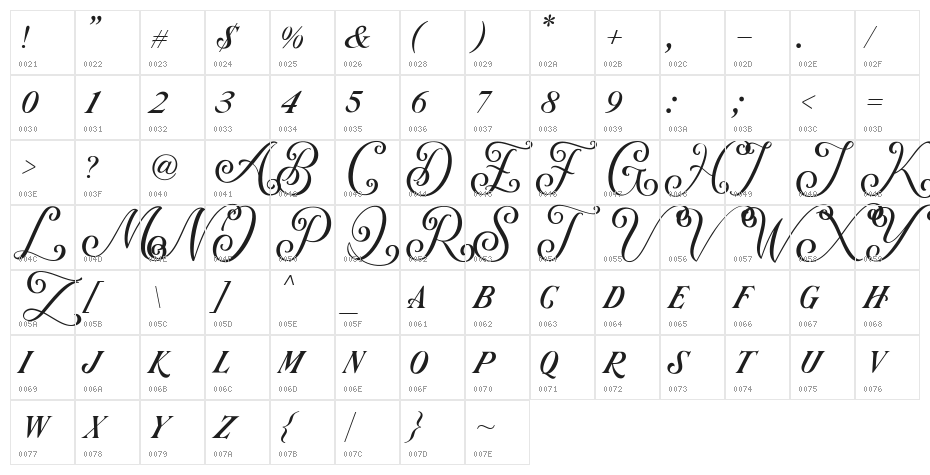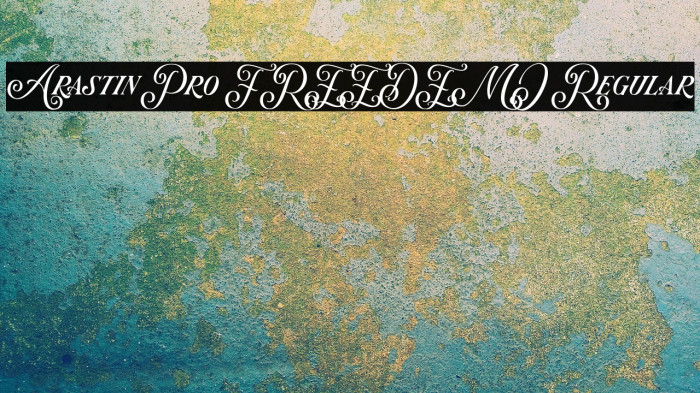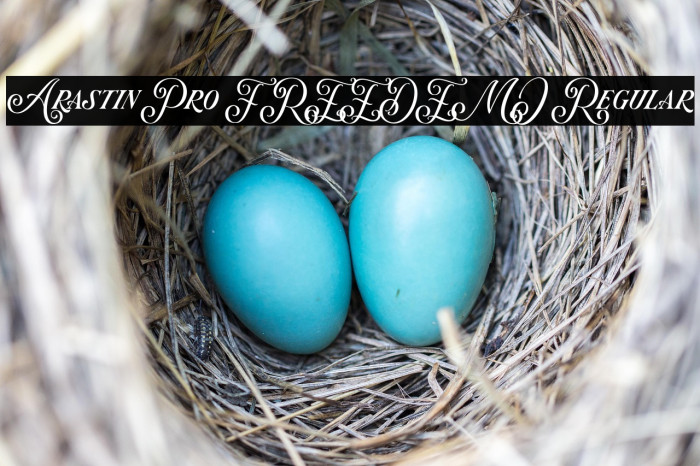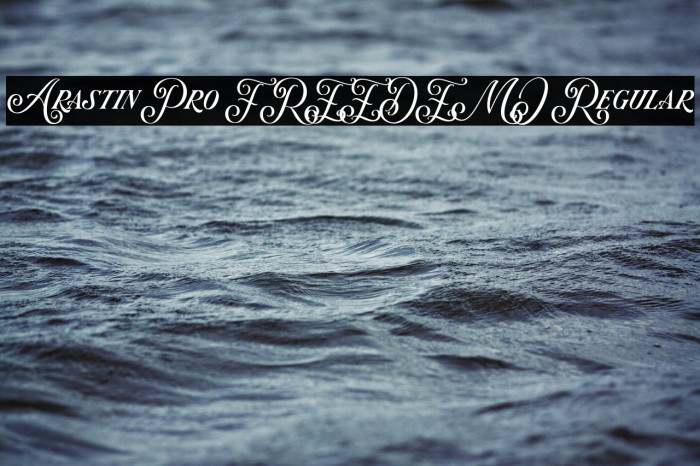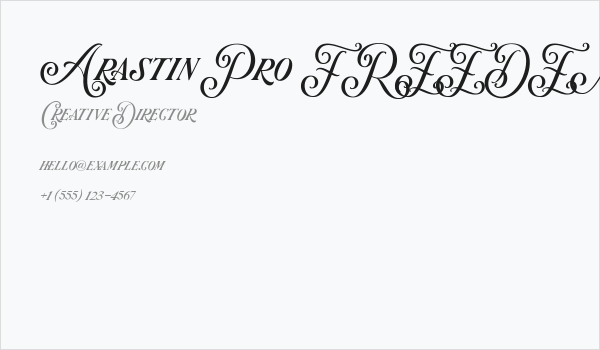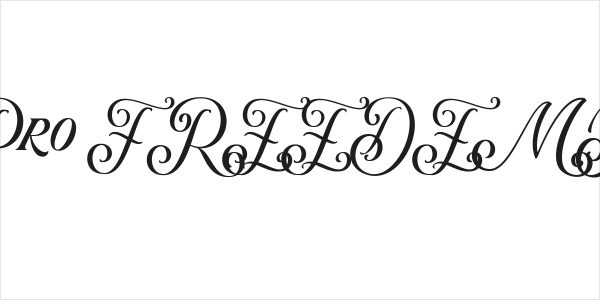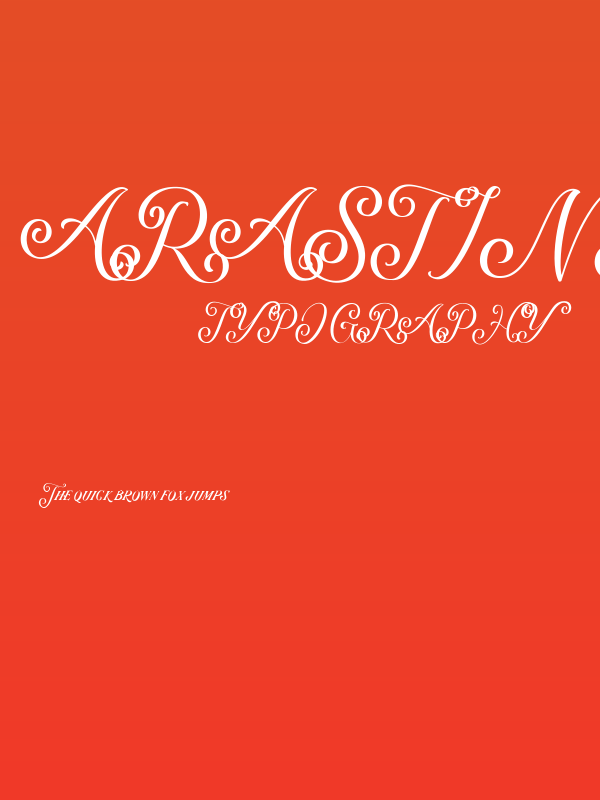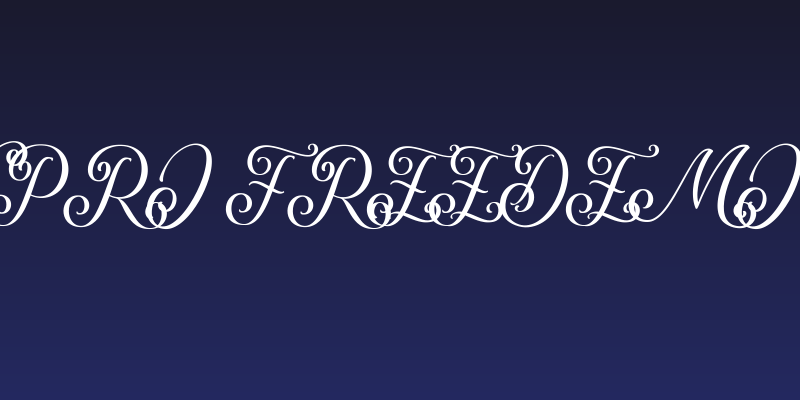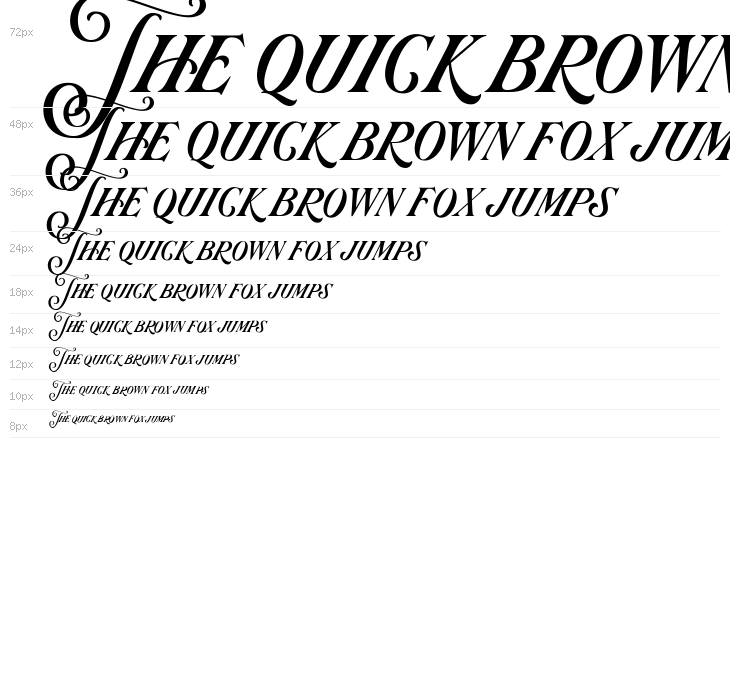
Arastin Pro FREE DEMO Regular Font
Arastin Pro FREE DEMO Regular Description
This font presents a blend of elegant script and bold serif styles. The uppercase script letters feature intricate swirls and flourishes, giving them a decorative and sophisticated appearance. In contrast, the bold serif uppercase letters are strong and impactful, with thick strokes and sharp edges. The numerals are consistent with the bold serif style, providing clarity and readability. Special characters maintain the decorative theme, with some incorporating subtle flourishes. This dual-style font offers versatility, combining decorative elements with bold, classic typography.